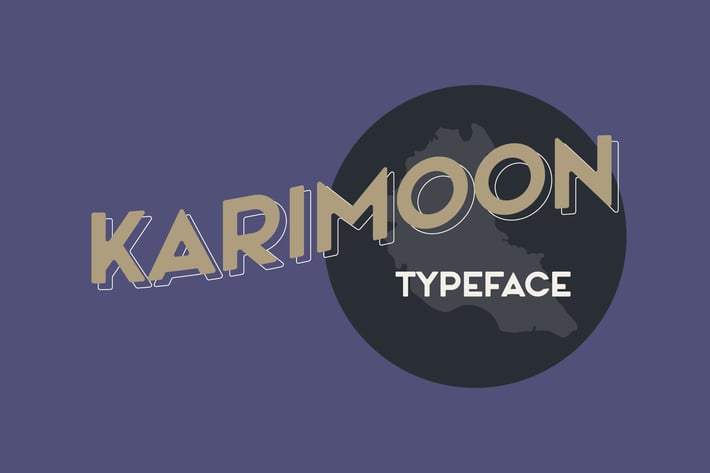
Karimoon Typeface
Karimoon is a modern sans serif font, perfect for all purposes like branding, labeling, designing, and more. There are two versions of the corners, sharp and round. Included Uppercase letters, numbers, and punctuation. Inspired by Karimun Island near Singapore.
Karimoon
Karimoon Rounded
Karimoon Outline
Karimoon Rounded Outline